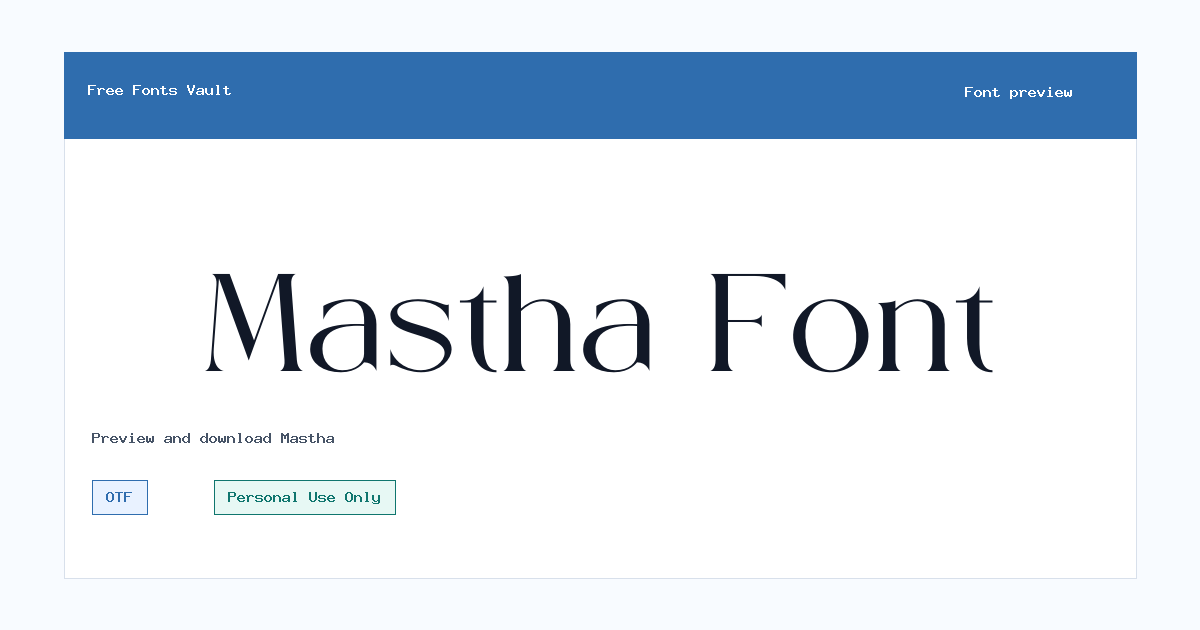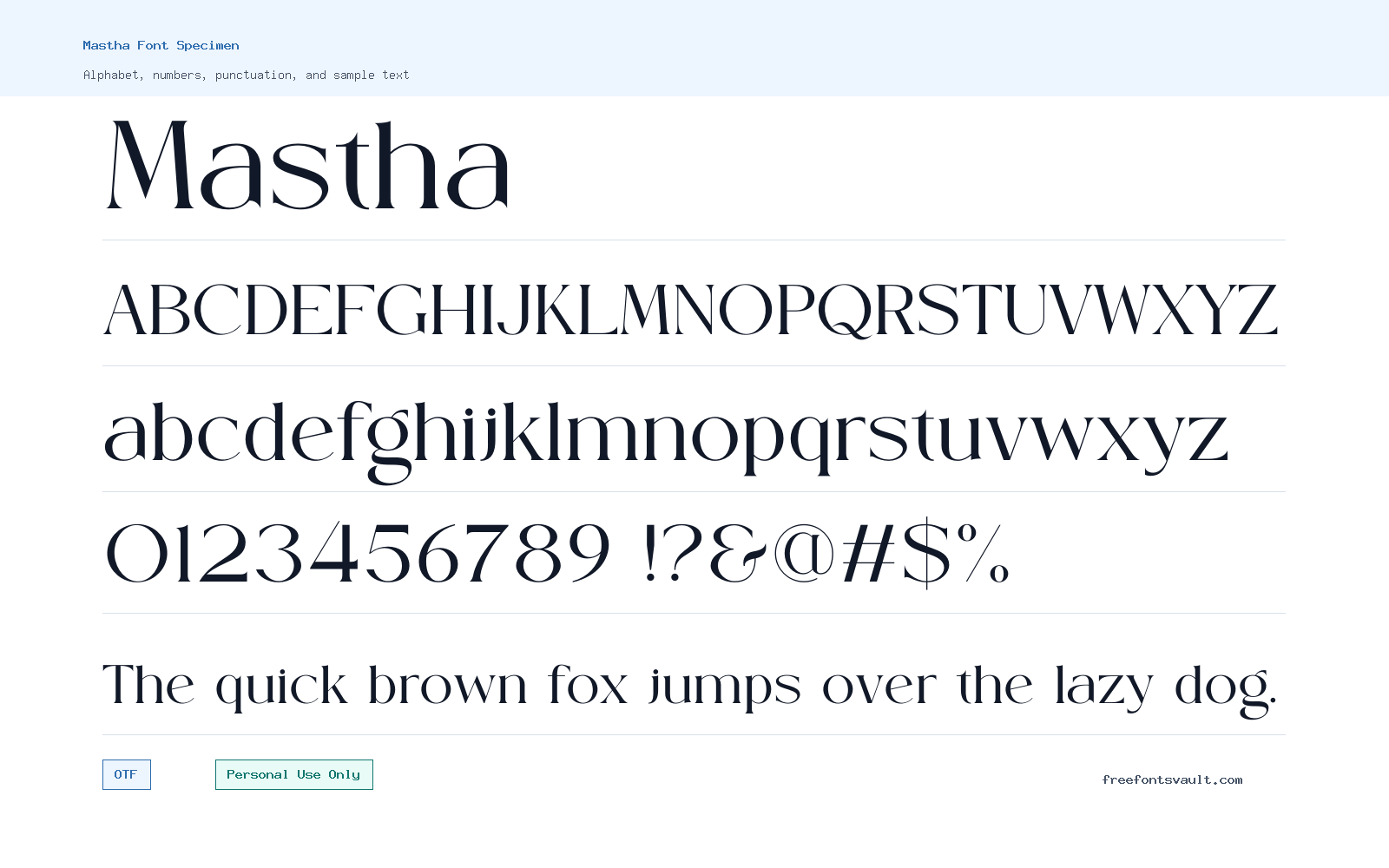
Mastha
Mastha font preview showing the family name
Mastha Font
Mastha font specimen showing alphabet, numbers, and sample text
• Designer Muflieart
Mastha font.
Mastha is a serif font by Muflieart, offered in a regular OTF style with a Personal Use Only license. It is a good font to test when you want a display-friendly serif for titles, mockups, and personal design experiments.
About Mastha Font
Mastha is identified as a serif font, so it belongs in the broad family of typefaces built around letterforms with small finishing strokes. Without making assumptions about its full character set or stylistic history, the safest way to approach Mastha is as a display candidate first: try it in larger sizes, compare uppercase and lowercase shapes, and check whether its spacing feels balanced for the words you plan to use. Serif display fonts can bring structure and personality to a layout, but the real test is always the preview: type your exact brand name, poster title, invitation headline, or social graphic text before deciding whether the rhythm works.
For designers, Mastha is best handled with a practical preview-first process. Start with short phrases rather than long paragraphs, because many decorative or display-leaning serif fonts are easier to judge in headlines than body copy. Test it in logo drafts, personal poster layouts, web hero mockups, quote graphics, mood boards, packaging concepts, and editorial-style headings. If you use it for logo exploration, check small-size clarity as well as the main large-size lockup. Some serif details that look attractive at poster scale may become less clear in a favicon, watermark, or mobile header. Also test letter pairs that matter to your design, such as double letters, wide capitals, narrow letters, and punctuation.
• Serif font family suitable for testing in headline and display layouts
• Designed by Muflieart
• Personal poster titles and quote graphics
• Web hero mockups and landing page previews
• Editorial-style headings in personal projects
• Invitation drafts, mood boards, and presentation concepts
• Typography experiments where a serif display voice is needed
Mastha is credited to Muflieart. No foundry name or official designer link is available in the font listing.
What kind of font is Mastha?
Mastha is identified as a serif font. It is best evaluated in larger preview sizes where the letter shapes and spacing are easier to judge.
Who designed Mastha?
Mastha is credited to Muflieart.
Is Mastha good for body text?
Use the preview first. Since only a regular serif style is noted, Mastha is safer to test for headings, titles, and short text before using it for longer reading.
What should I pair with Mastha?
Try pairing Mastha with a simple sans serif for body copy, captions, or navigation. Keep the supporting font plain so the serif title style remains clear.